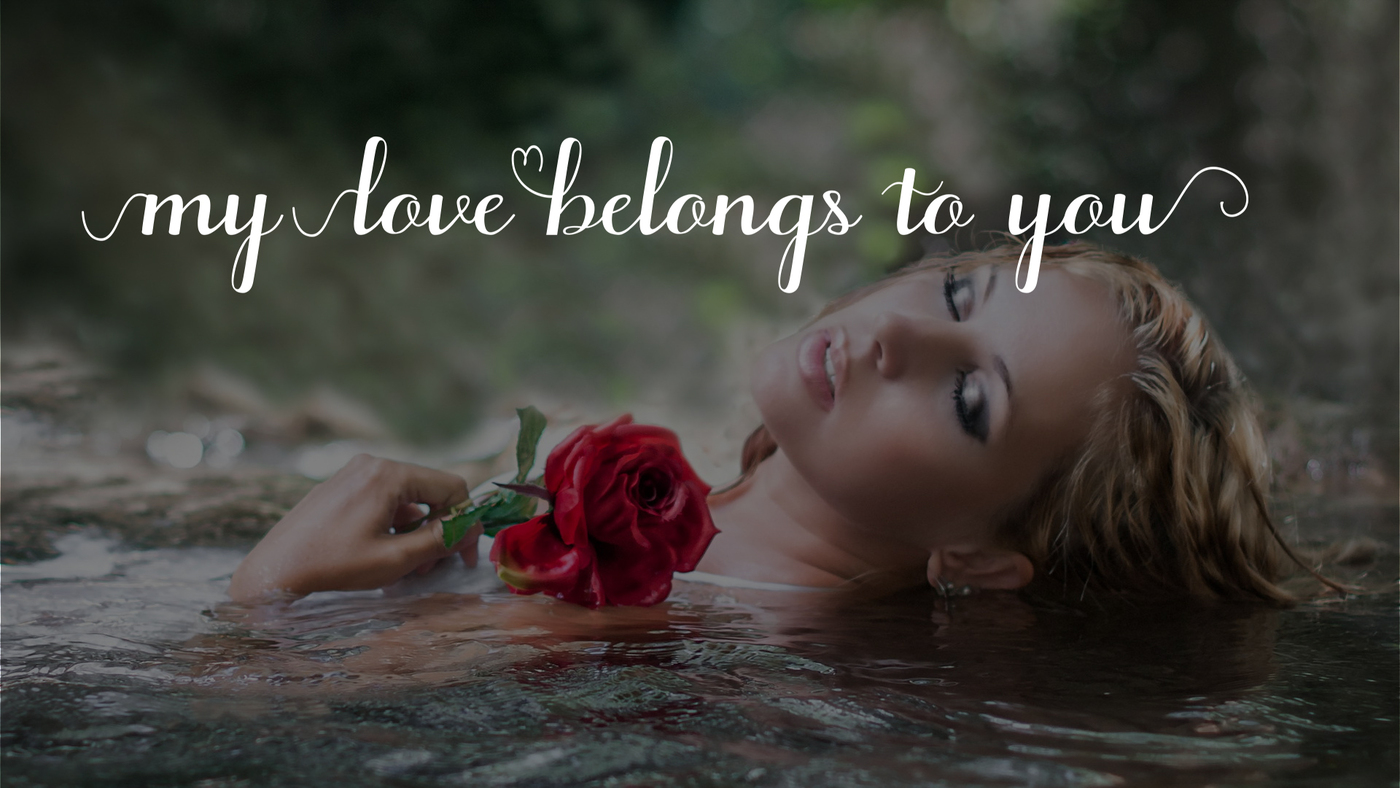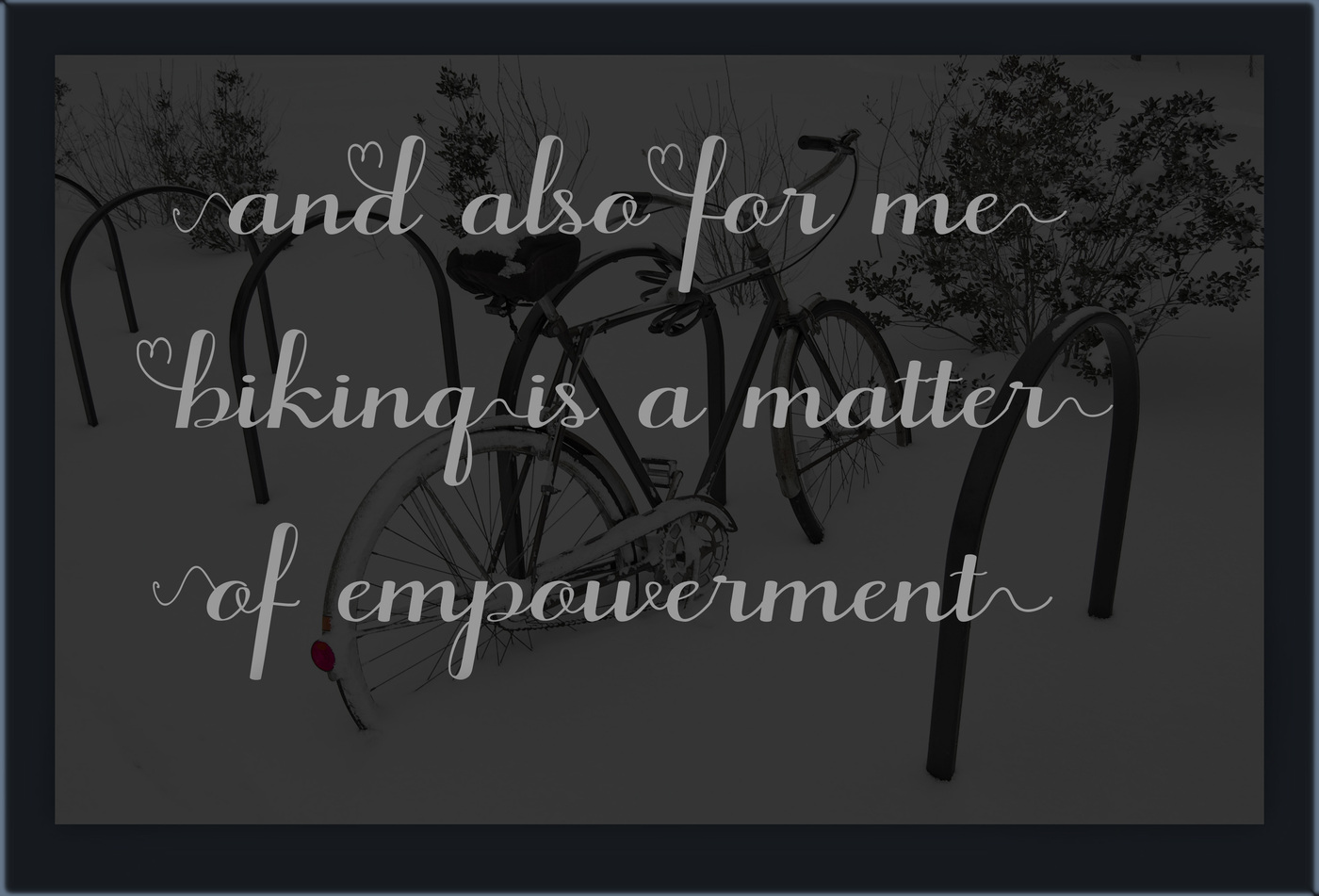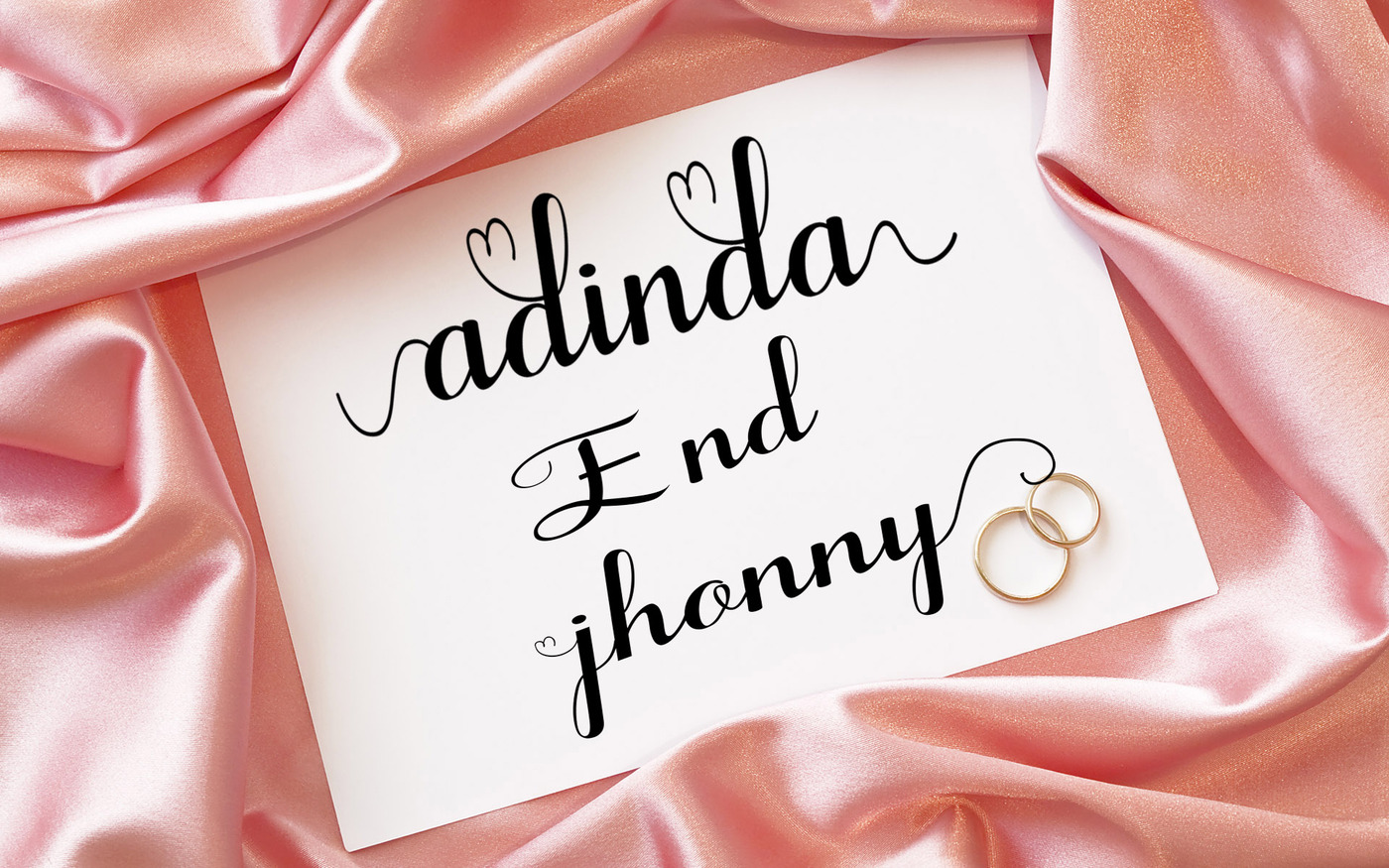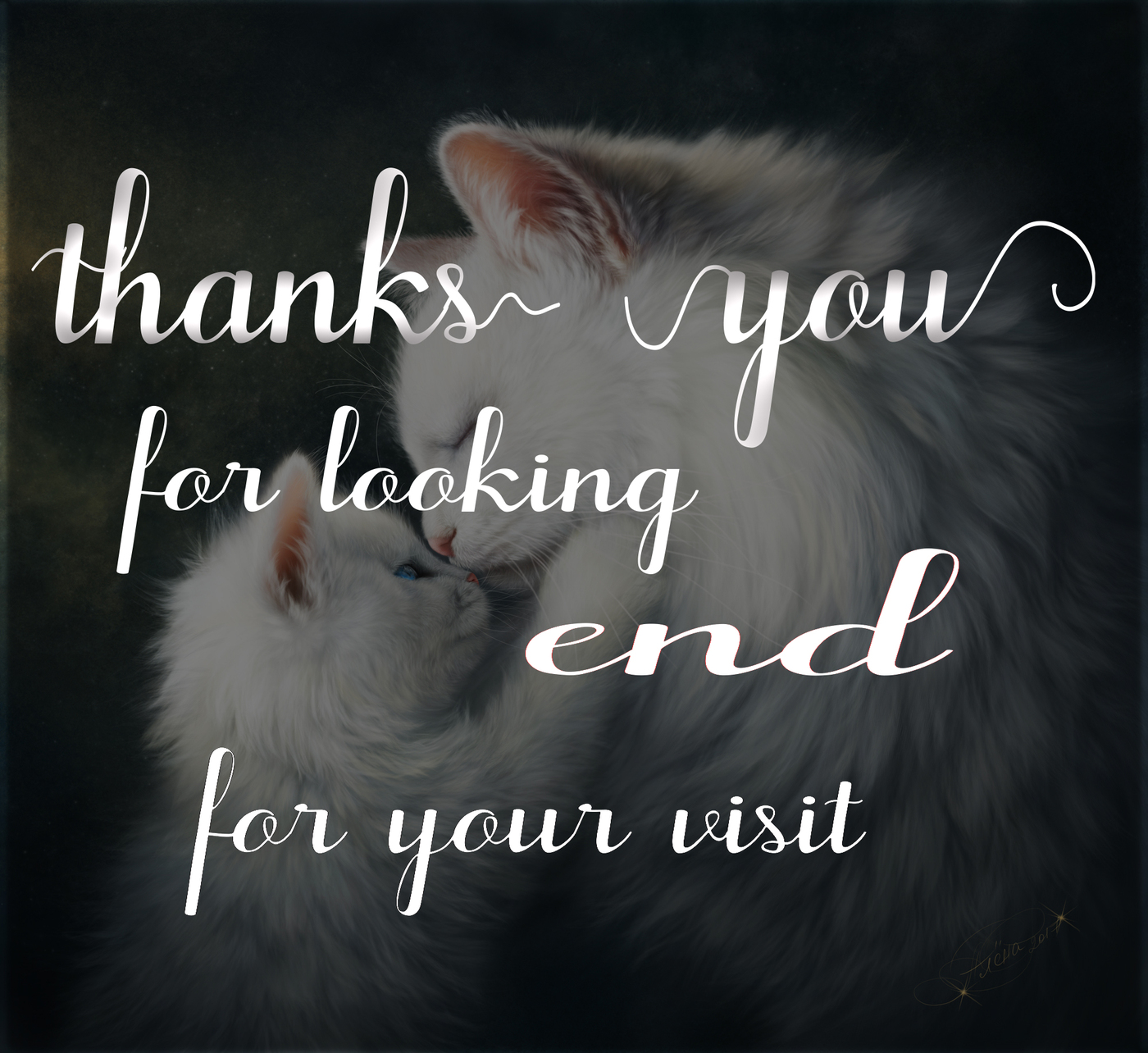
Introducing Adinda Font: A Handwritten Delight for Creative Designs
Are you a designer or crafter looking for a unique and versatile font to elevate your creative projects? Look no further than Adinda Font, a beautiful handwritten font suitable for a wide range of designs. In this article, we’ll dive into the features and benefits of Adinda Font, and explore how it can add a personal touch to your work.
What is Adinda Font?
Adinda Font is a carefully crafted handwritten font that exudes a sense of warmth and personality. Its elegant and fluid strokes make it perfect for designs that require a touch of sophistication and whimsy. Whether you’re working on a logo, branding project, invitation, or craft project, Adinda Font is sure to impress.
Key Features of Adinda Font
- Handwritten style: Adinda Font boasts a genuine handwritten look that’s perfect for creating unique and eye-catching designs.
- Versatile: This font is suitable for a wide range of projects, from formal to informal, and can be used for both digital and print designs.
- Elegant and fluid strokes: Adinda Font’s smooth and flowing strokes add a touch of sophistication to any design.
- Easy to read: Despite its handwritten nature, Adinda Font is highly legible, making it perfect for designs that require a personal touch without sacrificing readability.
Benefits of Using Adinda Font
So, why choose Adinda Font for your next design project? Here are just a few benefits of using this beautiful font:
- Adds a personal touch: Adinda Font’s handwritten style adds a personal and human touch to your designs, making them stand out from the crowd.
- Enhances creativity: With Adinda Font, you can experiment with different design styles and ideas, from elegant and sophisticated to playful and whimsical.
Design Ideas Using Adinda Font
Adinda Font is a versatile font that can be used in a variety of design projects. Here are some ideas to get you started:
- Wedding invitations: Add a touch of elegance and romance to your wedding invitations with Adinda Font.
- Branding and logos: Use Adinda Font to create a unique and memorable logo for your business or brand.
- Craft projects: Adinda Font is perfect for craft projects, such as making cards, gift tags, and other DIY crafts.
- Social media graphics: Use Adinda Font to create eye-catching social media graphics, such as quotes, posters, and flyers.
In conclusion, Adinda Font is a beautiful and versatile handwritten font that’s perfect for designers and crafters looking to add a personal touch to their creative projects. With its elegant and fluid strokes, Adinda Font is suitable for a wide range of designs, from formal to informal. Whether you’re working on a logo, branding project, invitation, or craft project, Adinda Font is sure to impress.